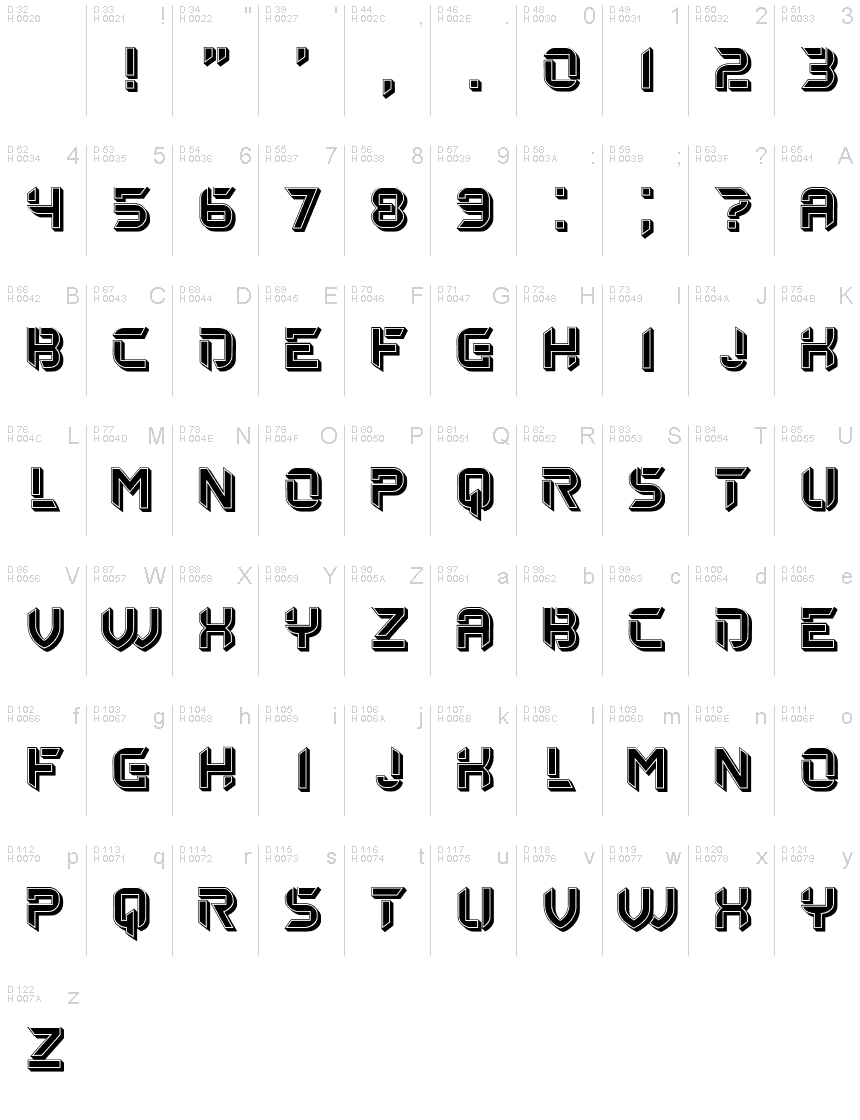
Arredamento Regular
Arredamento is a futuristic display font designed by Vladimir Nikolic. With its sleek and modern techno style, this font is perfect for branding projects, packaging design, and advertising campaigns that require an edgy and bold aesthetic. The semi-bold font weight adds to its strong presence, while the condensed width makes it ideal for headlines and titles that demand attention. Whether you're creating a website or designing a poster, Arredamento will help you stand out from the crowd with its unique and eye-catching look. Try it out in your next project and see the difference it makes!